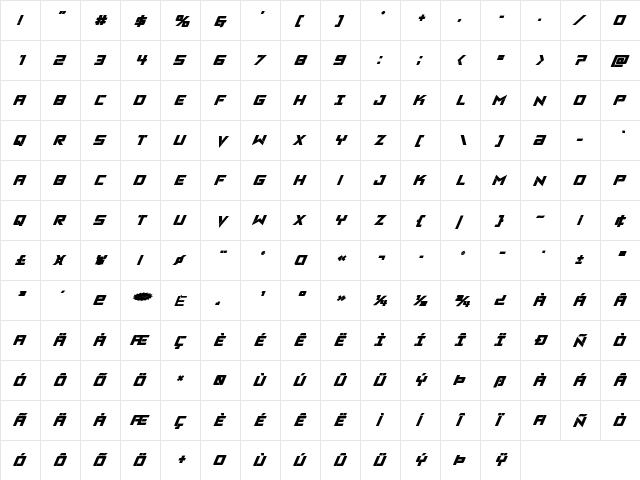
Viking Squad Bold Italic Bold Italic
Design Context for Viking Squad Bold Italic Typeface
Viking Squad Bold Italic is a composed and adaptable typeface that performs quietly and consistently across a wide range of design contexts. Its italic angle brings a sense of urgency and motion to the letterforms. The heavy weight commands attention and anchors typographic hierarchies.
Pro Tip: Use Viking Squad Bold Italic for emphasis, pull quotes, and subheadings where its slanted energy can add rhythm to the layout.